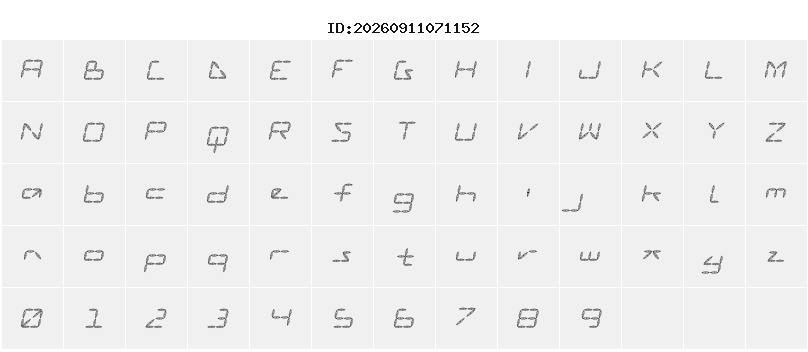
Vanguard III AOE Preview
• Font Name: Vanguard III AOE
• Font Style: Oblique
• Full Font Name: Vanguard III AOE Oblique
About Vanguard III AOE.ttf
Vanguard III AOE.ttf is a modern, elegant sans-serif font designed for ultimate readability and visual harmony. Perfect for branding, headlines, web design, and print materials.